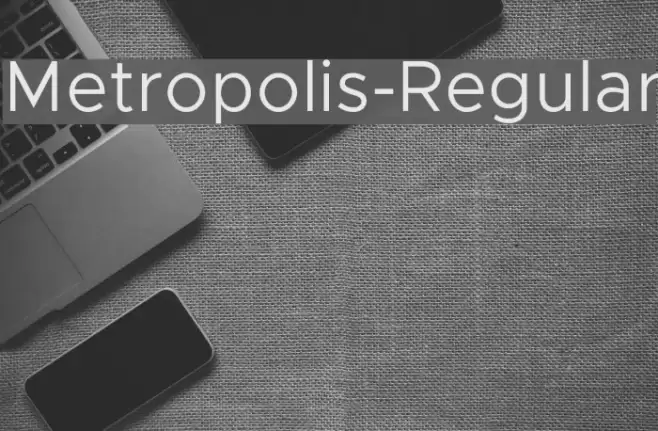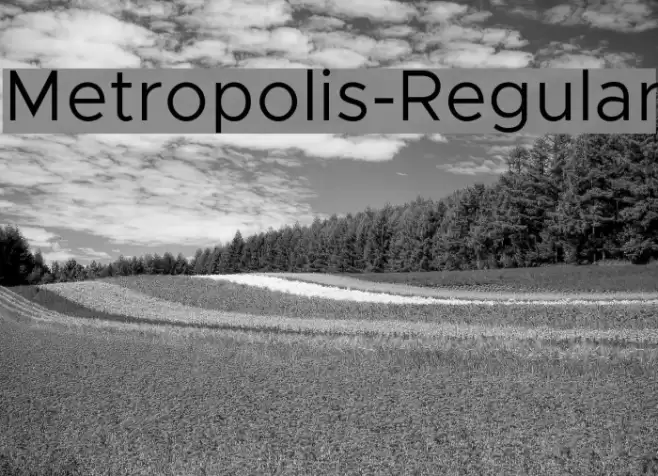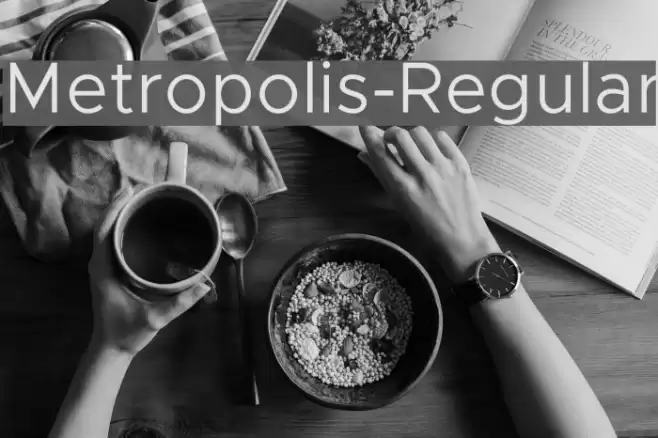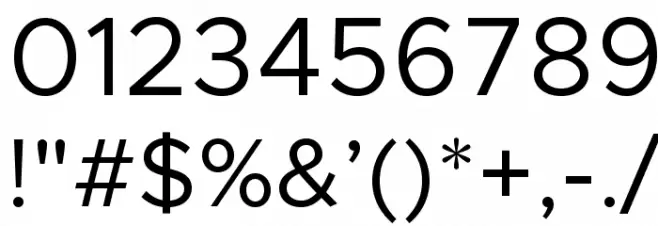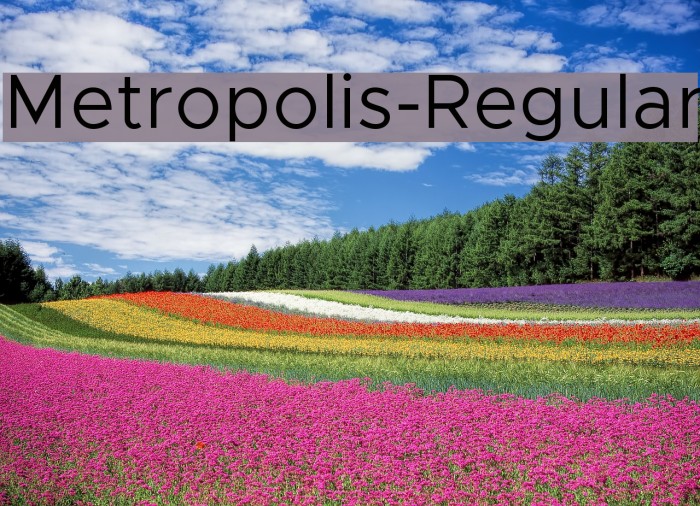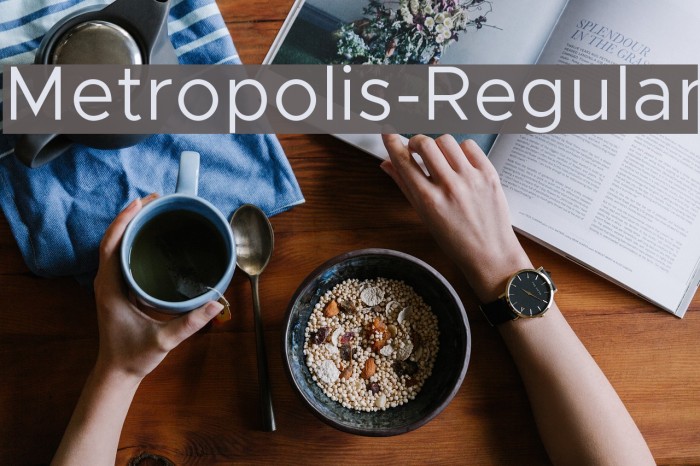
Metropolis-Regular Font
Metropolis-Regular Description
This font features a clean, geometric sans-serif style with a modern aesthetic. The characters are well-balanced with consistent stroke widths, providing a uniform appearance. The uppercase letters are bold and assertive, while the lowercase letters maintain a friendly and approachable feel. The numerals are clear and easy to read, making them suitable for various applications. Special characters are designed with simplicity, ensuring they blend seamlessly with the rest of the typeface. Overall, this font conveys a sense of clarity and professionalism.
A modern, geometric sans-serif font with clean lines and balanced proportions from Uncategorized fonts.
- Proposed Projects: Ideal for branding, web design, corporate materials, and editorial layouts.